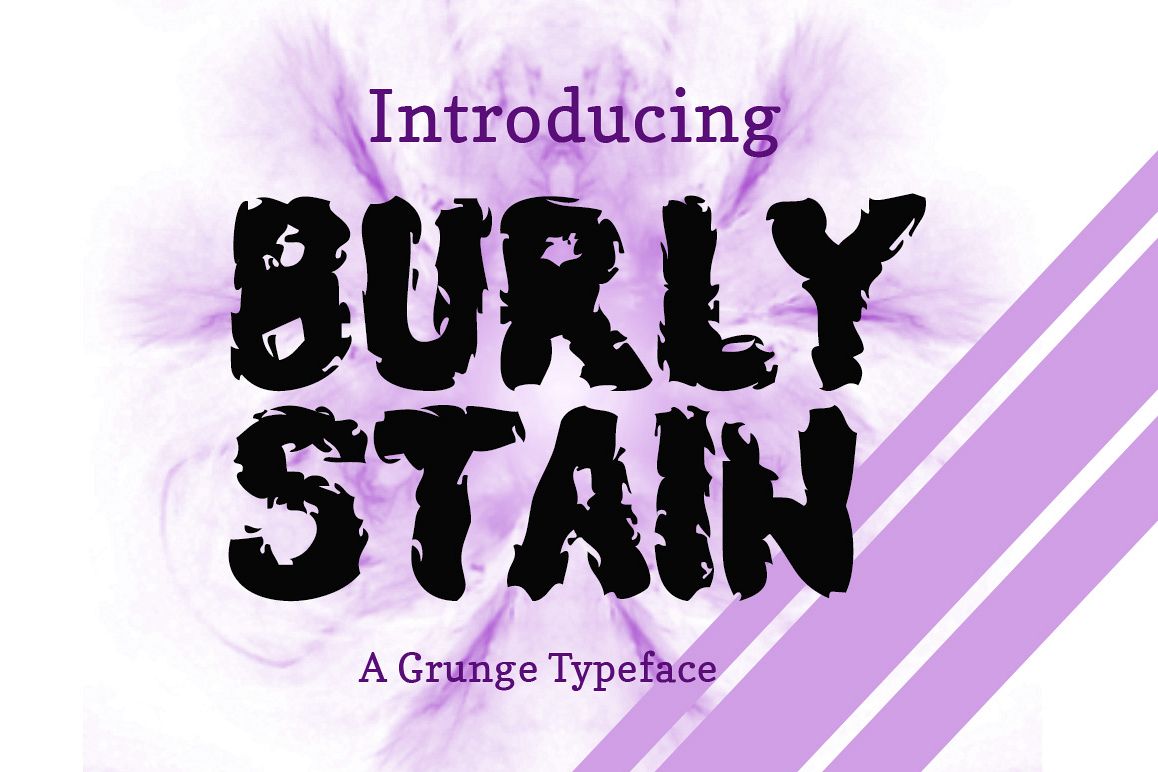
Burly Stain Typeface
Introducing Burly Stain!
Burly Stain
is a new & modern handmade font. Burly Stain is perfectly suited to stationery, logos, t-shirt, paper, print design, website header, photo frame, flyer, music cover, poster, image slider and much more.